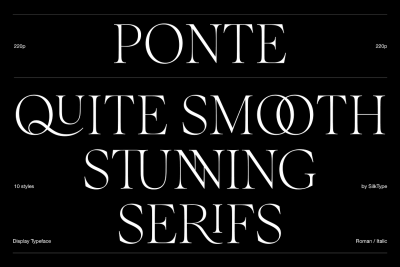
Ponte - 10 Font Family
Ponte - 10 Family Font
Designers reaching for Ponte - 10 Family find a typeface that holds up across diverse media — print, web, and motion.
Common applications include business cards, posters, web headers, advertising materials, book covers, and corporate identity systems.